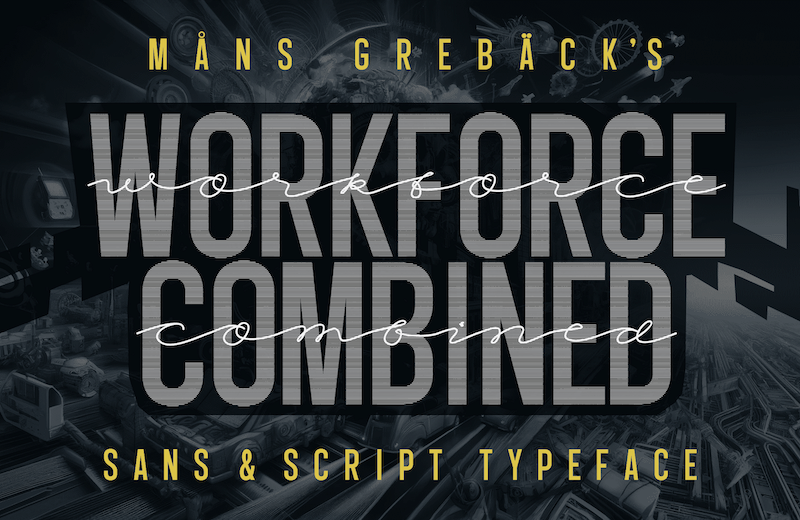
Preview and download Workforce Combine Font. Created by Måns Grebäck in Fancy Various styles with Free for personal use license.
NOTE: This font is for PERSONAL USE ONLY! To purchase a commercial license, visit: http://mn.sg/workforce Workforce is an striking blend of modern script and sans-serif lettering. A typeface made for logos and graphic design projects intended to leave a lasting impression. For questions, please visit www.mansgreback.com/faq |